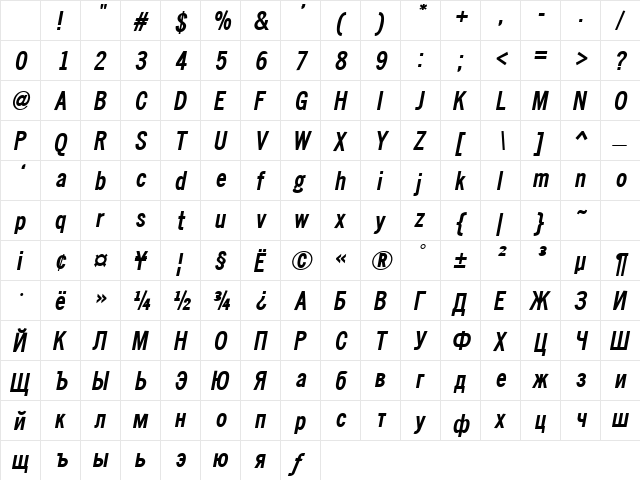
Complete NewsCondensed Bold Oblique glyph index. Displaying only characters natively supported by NewsCondensed Bold Oblique font.
NewsCondensed is a composed and adaptable typeface that performs quietly and consistently across a wide range of design contexts. The slanted form adds forward momentum and visual energy. Its bold stroke weight gives it real presence on the page. Its narrow stance lets it pack a punch even in space-constrained designs.
Pro Tip: Use NewsCondensed for emphasis, pull quotes, and subheadings where its slanted energy can add rhythm to the layout.